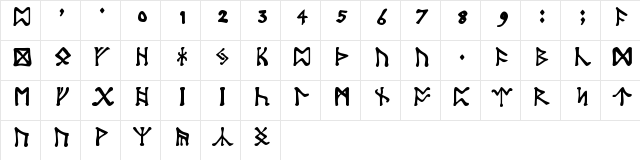
Tolkien Dwarf Runes Regular
Design Context for Tolkien Dwarf Runes Typeface
Tolkien Dwarf Runes is a composed and adaptable typeface that performs quietly and consistently across a wide range of design contexts.